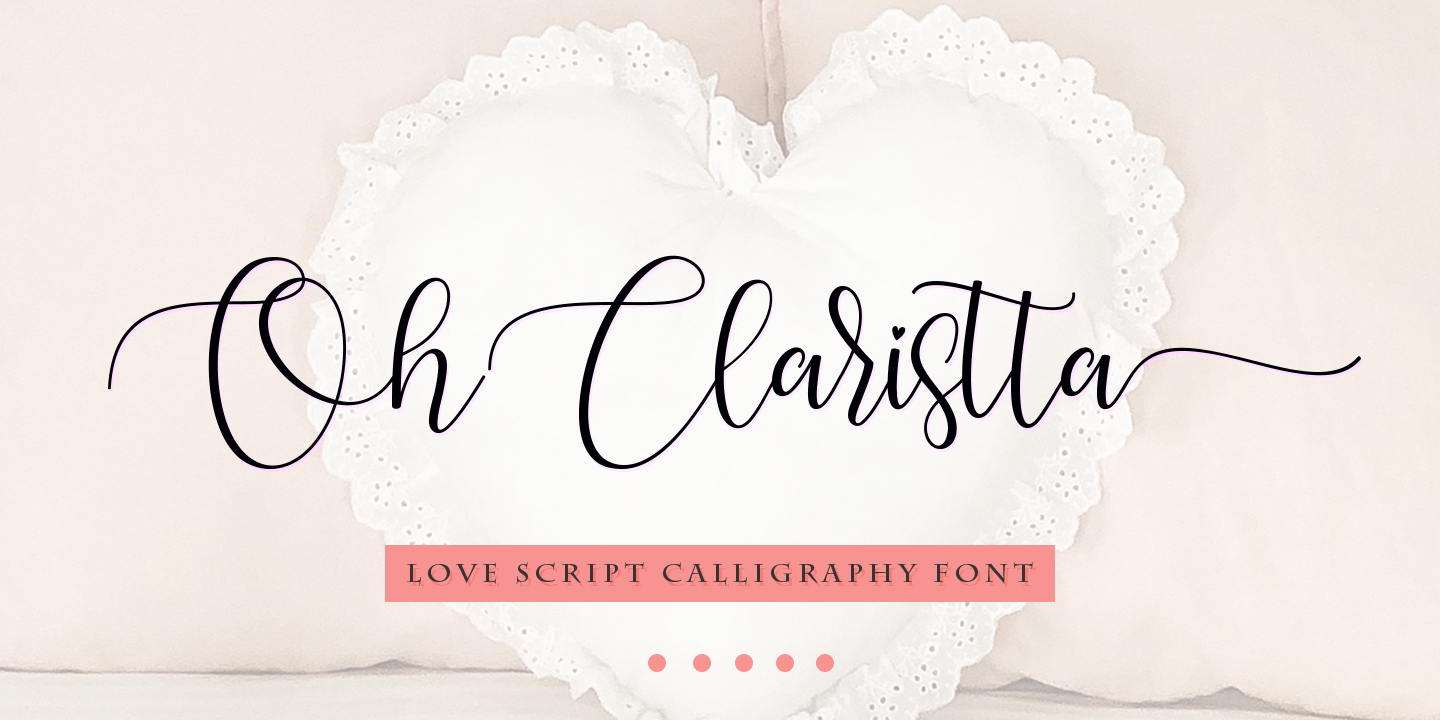
This enchanting typeface is perfect for romantic wedding designs, elegant calligraphy studios, vintage boutique branding, feminine lifestyle blogs, handcrafted invitation designs, luxury beauty salons, artisanal craft labels, and sophisticated personal branding that requires graceful charm and handwritten elegance with romantic sophistication and feminine authenticity.
Oh Claristta Font is exciting because it beautifully captures the intimate charm and romantic elegance of handwritten calligraphy through its flowing, script-inspired letterforms that dance across the page with graceful femininity and personal warmth. The font's distinctive character design and romantic aesthetic evoke the world of handcrafted love letters and elegant personal correspondence, making it perfect for brands that want to convey intimate connection, romantic sophistication, and the kind of personal touch that appeals to women seeking authentic elegance and heartfelt communication.
The Oh Claristta Font family includes romantic variations and feminine styling options, featuring regular, bold, ornamental, and decorative versions, along with elegant swashes and romantic flourishes that provide feminine brands and designers with comprehensive typographic tools for creating authentic romantic branding and graceful personal communications.
Express romantic elegance with Oh Claristta Font Free Download, a typeface that brings handwritten charm to contemporary feminine and romantic branding projects. This exceptional font combines personal intimacy with professional sophistication, making it an essential resource for wedding planners, beauty brands, and designers working on feminine lifestyle or romantic marketing campaigns. The gracefully crafted letterforms ensure beautiful readability while conveying the romantic charm and feminine elegance that defines this distinctly personal and authentically handwritten-inspired typeface.